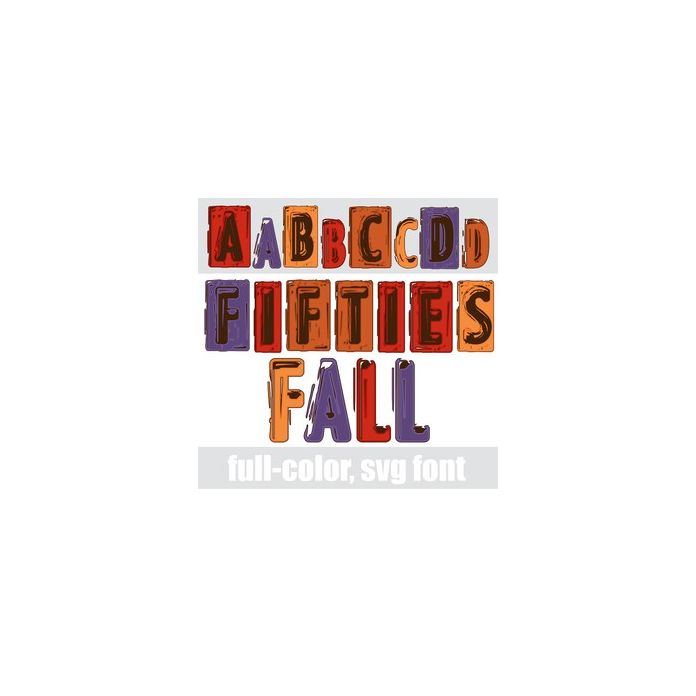
This full-color font features a rustic autumn-colored alphabet. There is an alt case w/ additional colors you can access through your system or Silhouette's glyph map.